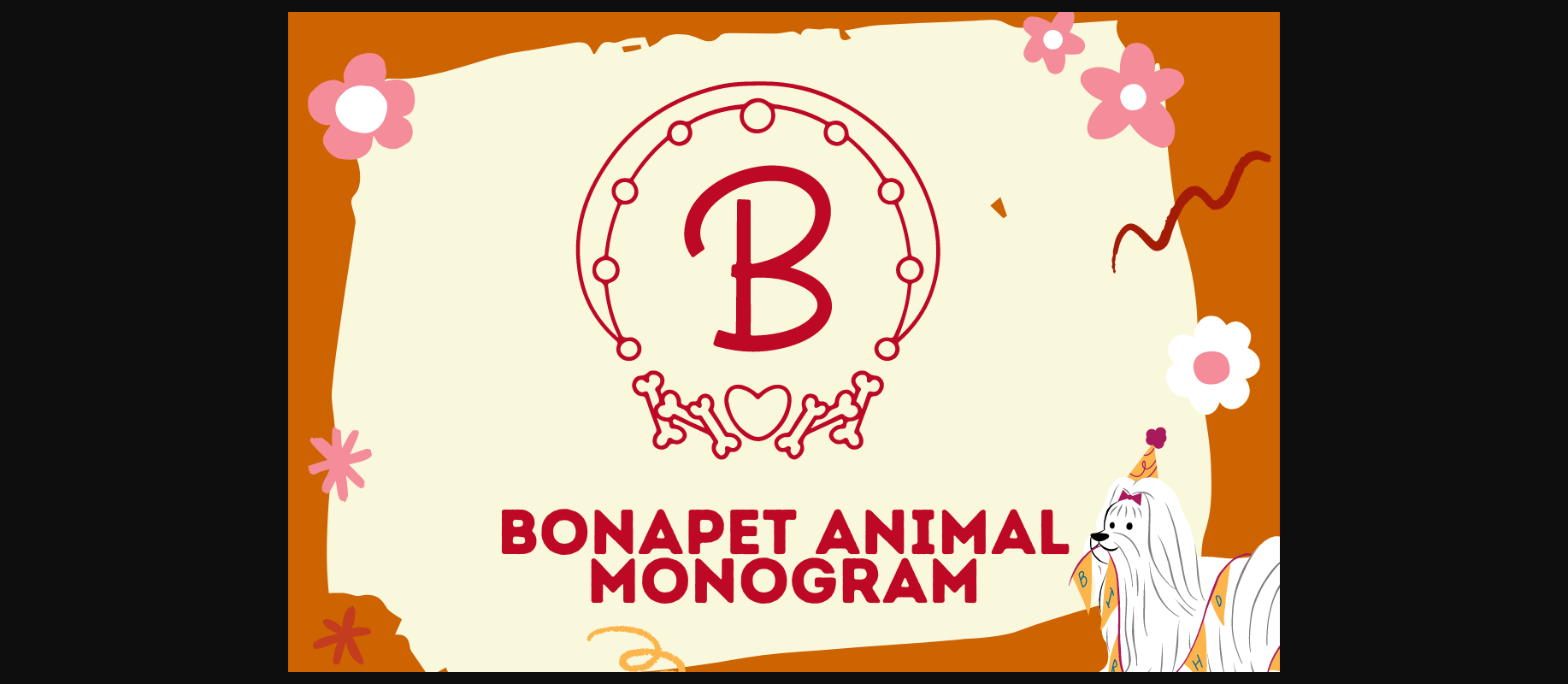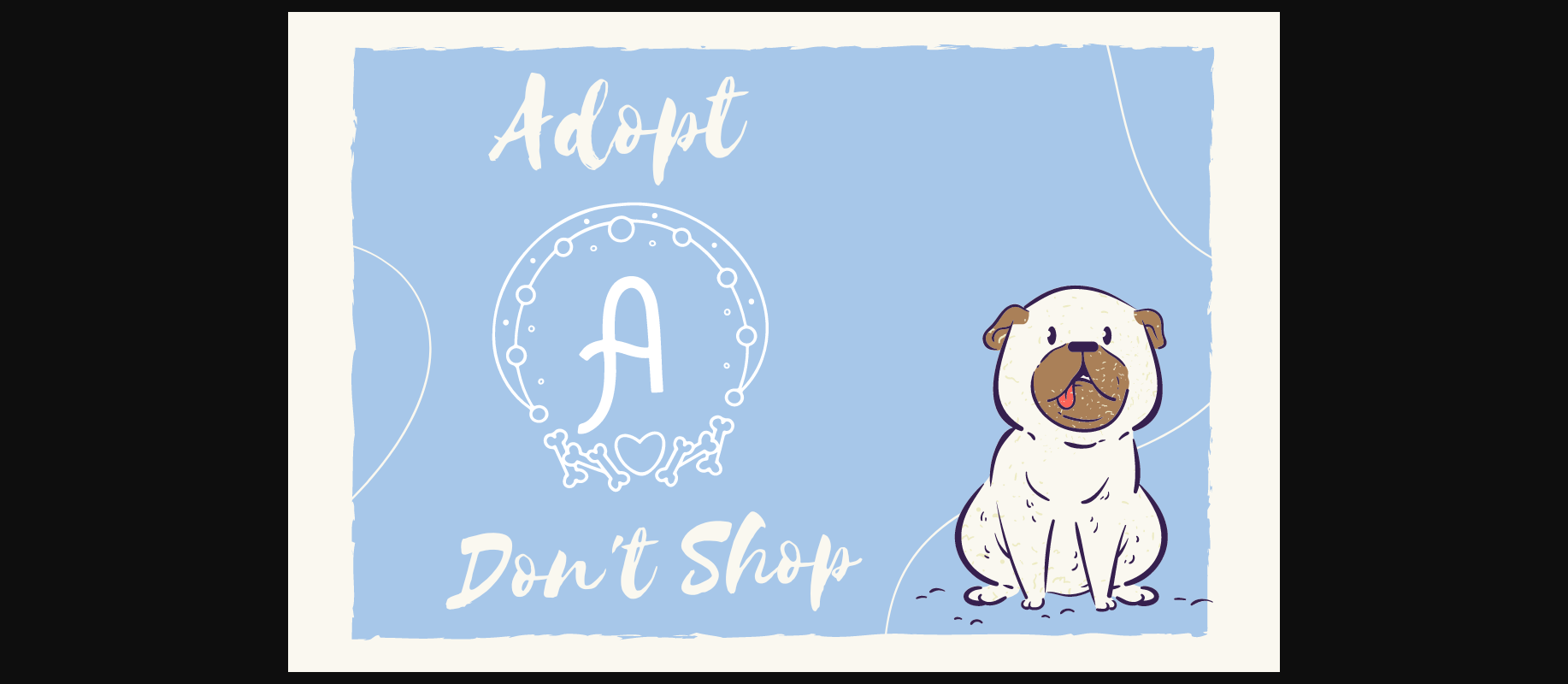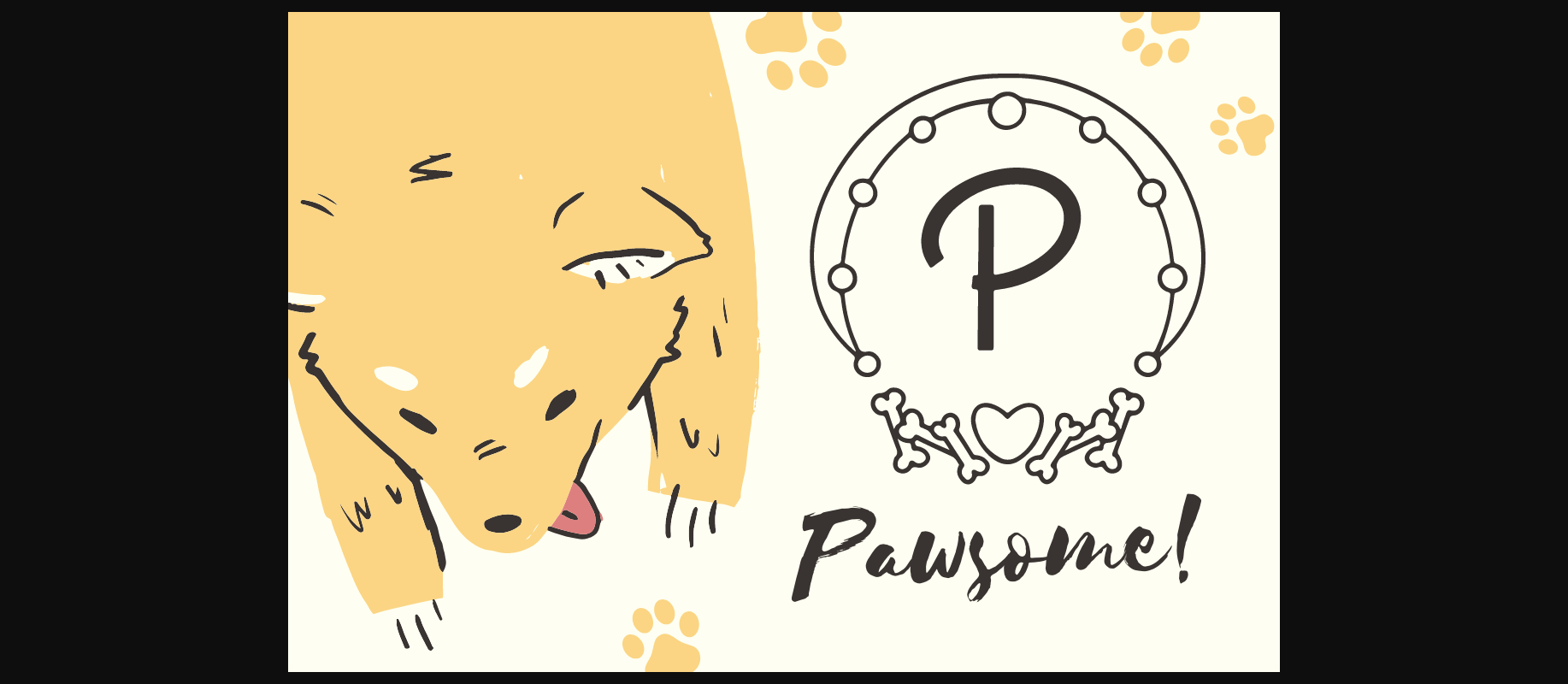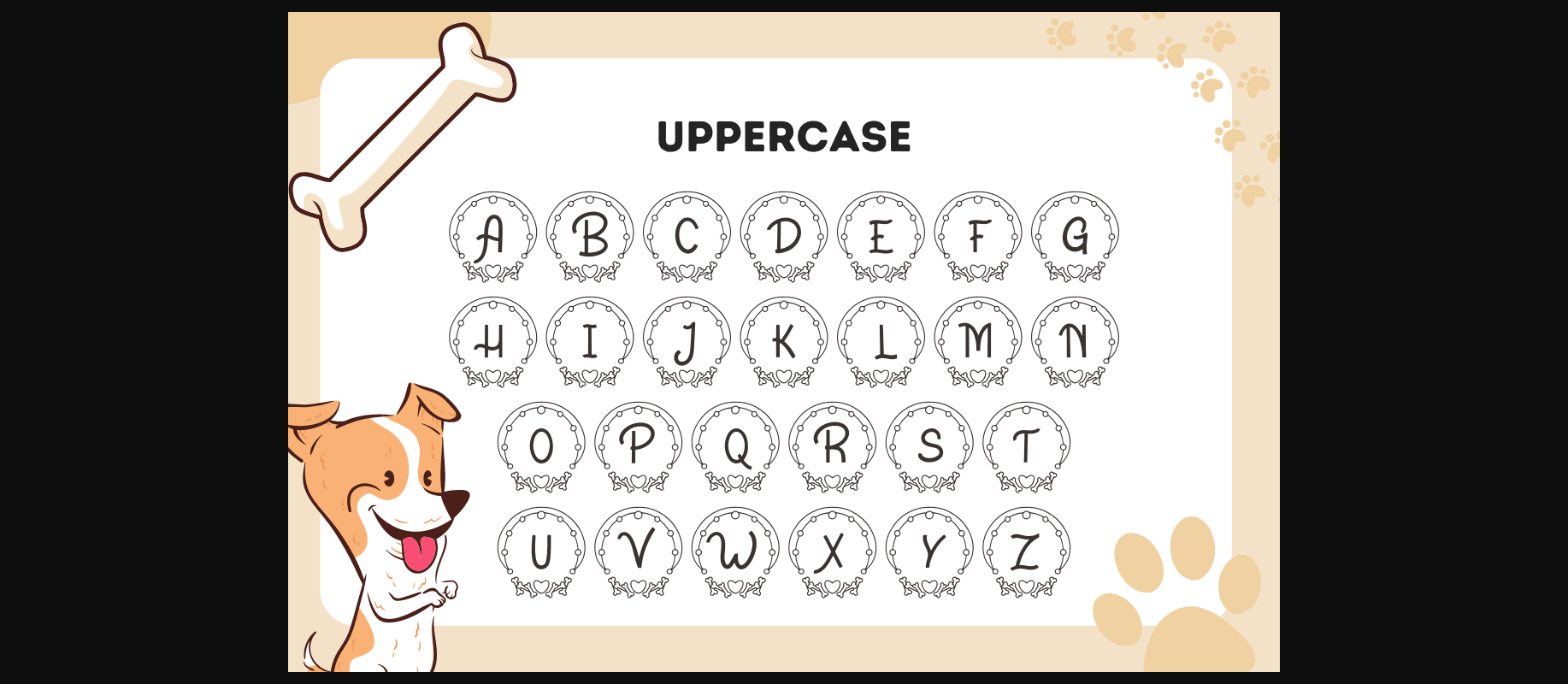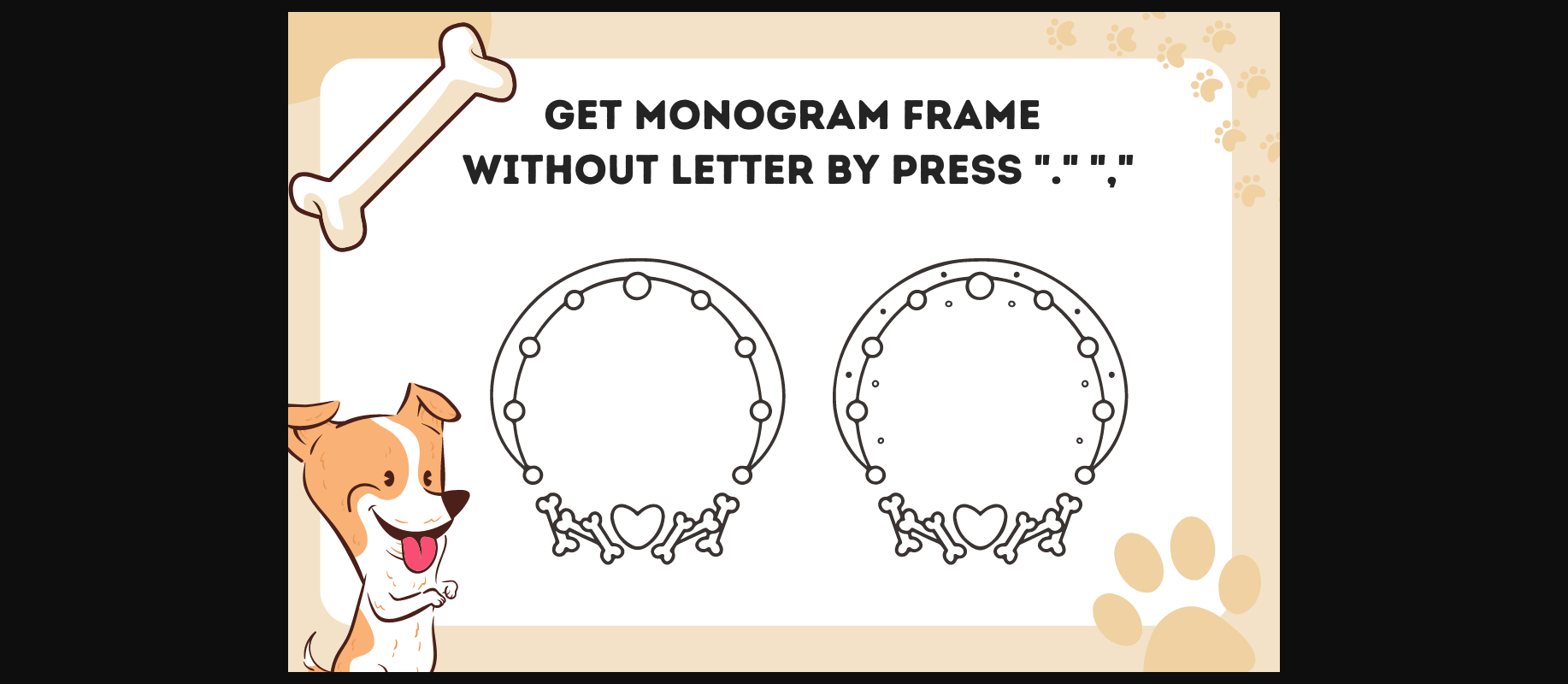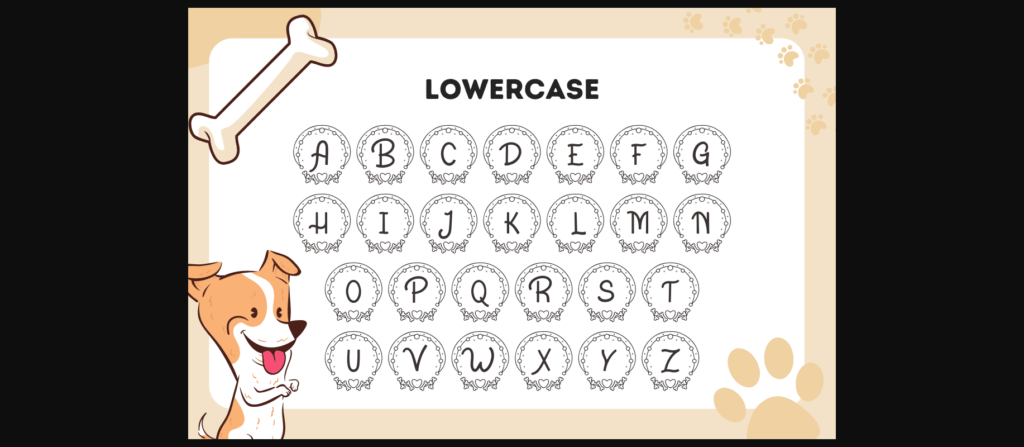
Bonapet Animal Monogram Font
About Bonapet Animal Monogram Font
Bonapet Animal Monogram is a cute decorative font inspired by animals.
This font can be used to make custom gifts, including textiles, gifts for kids and homeowners, cat lovers, or anyone with a love of monograms.
Comes in 2 styles.
Just simply change between uppercase and lowercase to see the different styles!